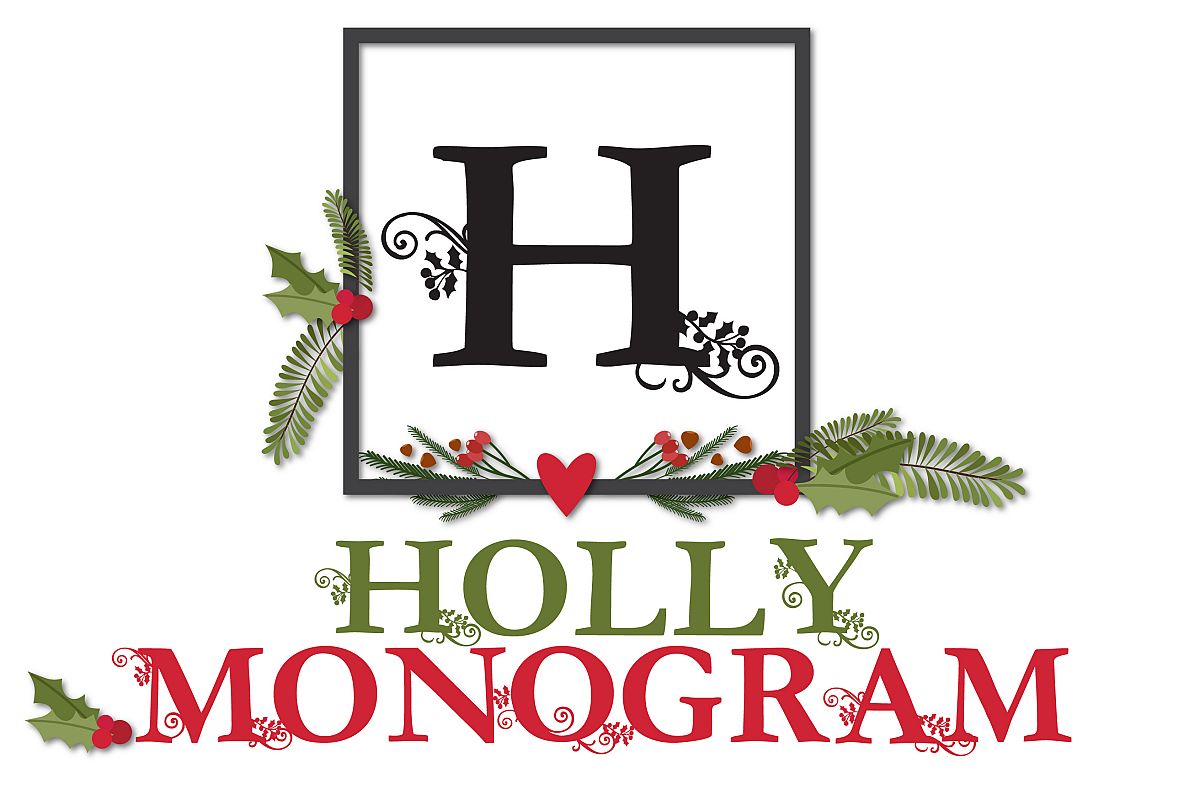
This monogram font can be used just for monograming or you can use for pretty and flourished projects. The uppercase is flourished with Christmas holly and the lowercase is without. Mix both cases up for best results.
- Monogram uppercase
- Uppercase without flourishes
- Numbers and symbols
- International characters